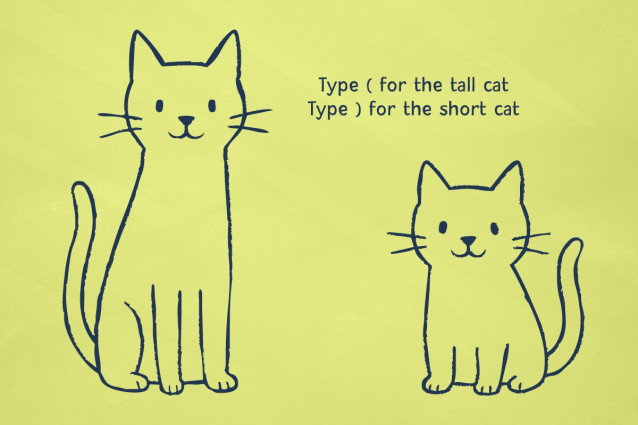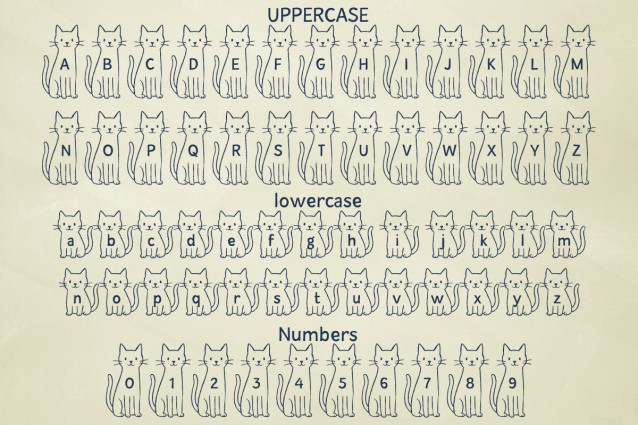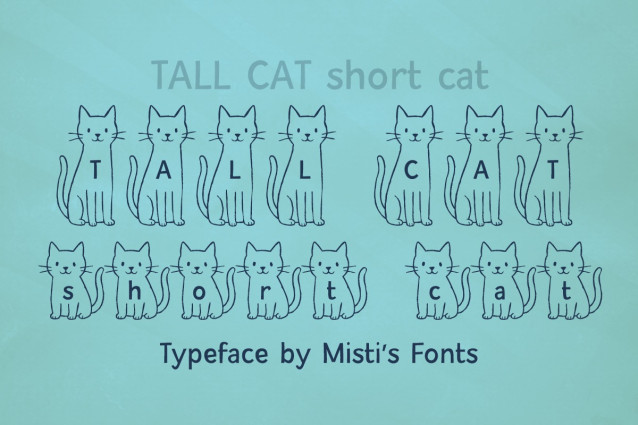
Tall Cat Short Cat Font
Tall Cat Short Cat Font is a playful and imaginative decorative font that brings letters to life through charming feline illustrations. Each character is cleverly designed as a cat, with uppercase letters appearing as tall, elegant kitties and lowercase letters as their shorter, cuter companions, creating a delightful balance of variety and personality. Numbers and symbols follow the same whimsical style, making every element feel cohesive and fun. This typeface radiates warmth and friendliness, perfect for children’s books, greeting cards, educational projects, posters, stickers, and any design that calls for a dash of humor and creativity. With Tall Cat Short Cat, typography becomes storytelling, transforming ordinary words into a parade of adorable cats that instantly capture hearts.